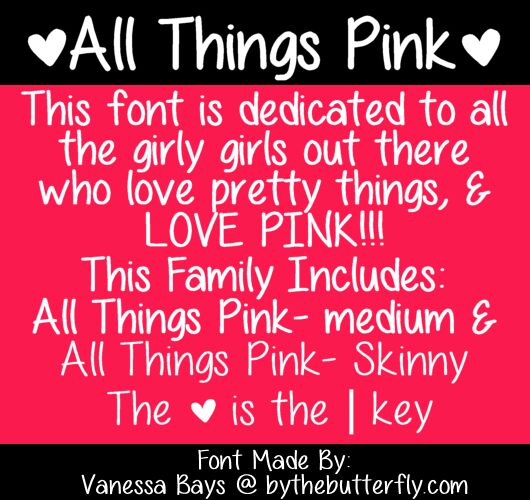
All Things Pink Skinny
All Things Pink Skinny by Vanessa Bays is a free handwritten font with a very tall, airy silhouette and the easy irregularity of lettering drawn with a fine marker. Slender strokes and uneven proportions keep the lettering pleasantly informal.
Its strongest setting is personal stationery, where the loose line can make invitations, greeting cards, and journal covers feel directly written rather than typeset, matching the intimacy of notes exchanged between friends. For small beauty labels and boutique branding, it can shape an approachable identity, particularly when the lettering becomes a recurring casual signature-style mark across tags, boxes, and online announcements.